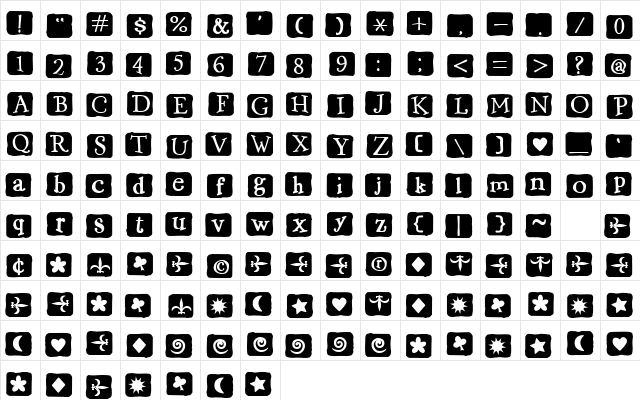
2Peas Flea Market Block Irreg Regular
Design Context for 2Peas Flea Market Block Irreg Typeface
2Peas Flea Market Block Irreg is a composed and adaptable typeface that performs quietly and consistently across a wide range of design contexts.